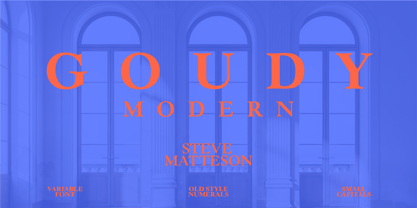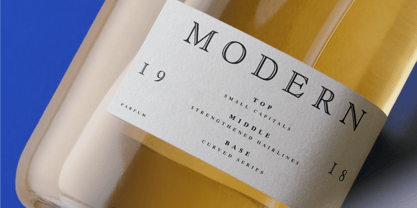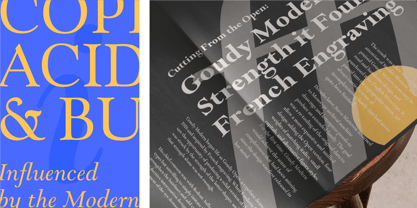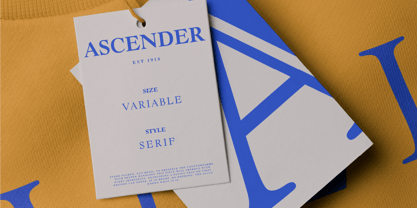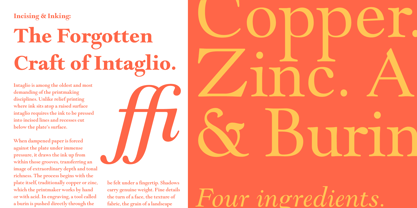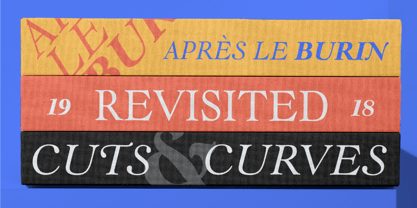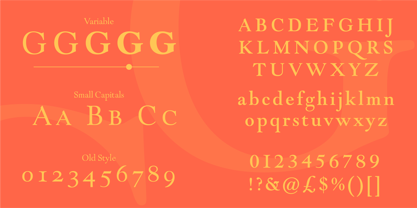
Goudy Modern Now Variable
Die Schriftfamilie Goudy Modern Now Variable wurde von Steve Matteson, Frederic W. Goudy entworfen und von Monotype veröffentlicht. Goudy Modern Now Variable enthält 2 Stile und Familienpaketoptionen. Mehr über diese Familie
Frederic Goudy designed his Modern first as a display type with a subtle engraved highlight in 1918. Upon seeing those proofs he inked in the engraved marks and was satisfied the new solid black type would work in text as well. The resulting type has old style characteristics but is more narrow and upright than Venetian or French old style types. Goudy viewed the Modern name as only referring to the design being more contemporary than typical of his other typefaces. Steve Matteson added the light and heavier weights to extend the range of capability of the family, and to roughly interpret Goudy’s Goethe which is a lighter text typeface based on the original Goudy Modern.